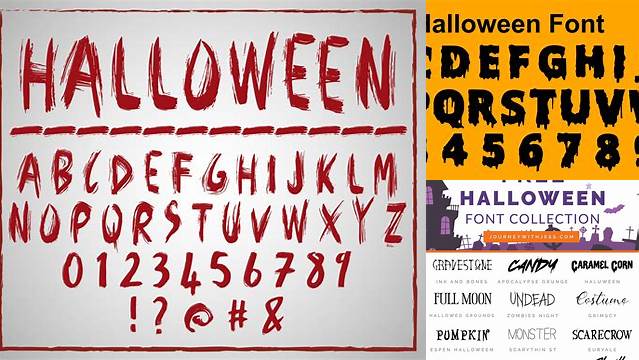
Scary Good: Free Fonts For Halloween
Crafting spooky designs for Halloween? The right font can make all the difference! Whether you're creating invitations, posters, or digital art, a scary Halloween font can instantly set the perfect chilling mood. But who wants to spend a fortune on fonts? Luckily, there are tons of free fonts available that perfectly capture the spooky season.
In this guide, we'll explore a wide array of free scary fonts perfect for Halloween. We'll cover everything from classic horror styles to more modern and unique spooky designs. Ready to dive in and find the perfect font to scare up some creativity? Let’s get started, guys!
Spooky and Scary Halloween Fonts: An Overview
Before we jump into specific font recommendations, let’s take a broad look at what makes a font suitable for Halloween designs. Generally, scary fonts evoke feelings of fear, suspense, and unease. Common characteristics include jagged edges, dripping effects, distorted letterforms, and an overall sense of something being "off." The best Halloween fonts often draw inspiration from classic horror themes, such as haunted houses, graveyards, and monster movies.
When selecting a free scary font, consider the specific tone you want to convey. Are you aiming for playful spookiness, or something genuinely terrifying? The font should complement the overall design and message of your project. Remember, legibility is also key – even the scariest font needs to be readable!
Classic Horror Fonts for Halloween
When you think of scary Halloween fonts, certain classic styles immediately come to mind. These fonts often emulate the look of vintage horror movie posters or old gothic novels. Examples include fonts with thick, bold strokes, sharp serifs, and a slightly distressed appearance. These fonts are perfect for creating a sense of nostalgia and timeless horror.
To make the classic horror fonts even more effective, use them in conjunction with fitting visuals. Images of haunted houses, bats, spiders, and other traditional Halloween motifs can enhance the overall spooky effect. Consider using dark color palettes, such as black, gray, and deep red, to further emphasize the horror theme. These free Halloween fonts are ideal for invitations, posters, and social media graphics that need a traditional touch.
Creepy Gothic Fonts for Halloween
Gothic fonts bring an elegant yet ominous feel to any Halloween project. Characterized by elaborate serifs, intricate details, and a generally ornate appearance, Gothic fonts can evoke a sense of old-world horror. These free scary fonts are perfect for projects that require a touch of sophistication while still maintaining a creepy vibe. Think invitations to a haunted masquerade ball or posters for a spooky theatrical production.
Pairing Gothic fonts with vintage illustrations and decorative elements can create a stunning visual effect. Consider using these fonts for headlines and titles, as their ornate style can be overwhelming for large blocks of text. Experiment with different color combinations to find the perfect balance between elegance and spookiness. These Halloween fonts are a great way to add a touch of class to your scary designs.
Dripping and Bleeding Fonts for Halloween
For a truly visceral and disturbing effect, dripping and bleeding fonts are an excellent choice. These free scary fonts simulate the look of liquid dripping or splattering, adding a sense of gore and horror to your designs. These fonts are perfect for creating a sense of unease and dread. They work particularly well for projects that need to be shocking and attention-grabbing, such as posters for a haunted house or promotional materials for a horror movie.
When using dripping fonts, be mindful of legibility. Too much dripping can make the text difficult to read. Use these free scary fonts sparingly, focusing on headlines or key words. Combine them with blood-splattered backgrounds, dark color palettes, and other gruesome visual elements to maximize their impact. These Halloween fonts are guaranteed to send shivers down your audience's spines.
Distorted and Glitchy Fonts for Halloween
In the age of digital horror, distorted and glitchy fonts have become increasingly popular. These fonts evoke a sense of technological malfunction and digital decay, adding a modern twist to traditional horror themes. They are perfect for projects that need to be unsettling and unconventional, such as posters for a sci-fi horror film or social media graphics that play on digital anxieties.
Experiment with different types of distortion, such as pixelation, noise, and chromatic aberration, to create a truly unique and unsettling effect. These free scary fonts work well with dark color palettes, neon accents, and other high-tech visual elements. These Halloween fonts are a great way to tap into contemporary fears and anxieties.
Fonts Inspired by Horror Movie Titles for Halloween
Final Thoughts on Free Scary Halloween Fonts
So, there you have it! A comprehensive guide to finding and using free scary Halloween fonts. With the right fonts and a little creativity, you can create stunning Halloween designs that are sure to impress. Remember to choose fonts that complement your overall theme, maintain legibility, and evoke the desired emotions. Happy haunting, guys!